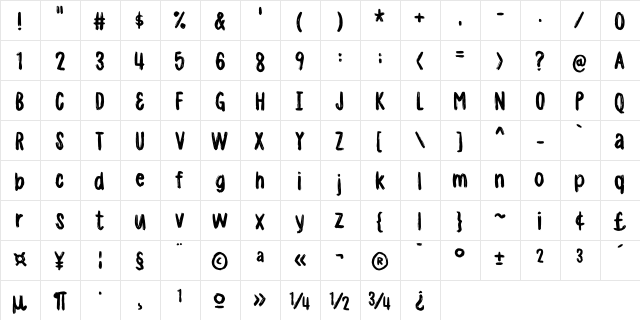
Madpakke DEMO Regular
Design Context for Madpakke DEMO Typeface
Madpakke DEMO is a composed and adaptable typeface that performs quietly and consistently across a wide range of design contexts.